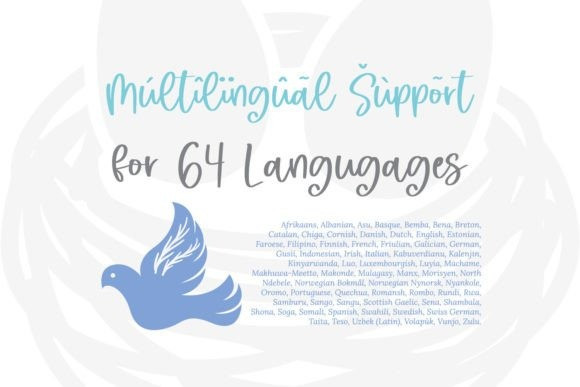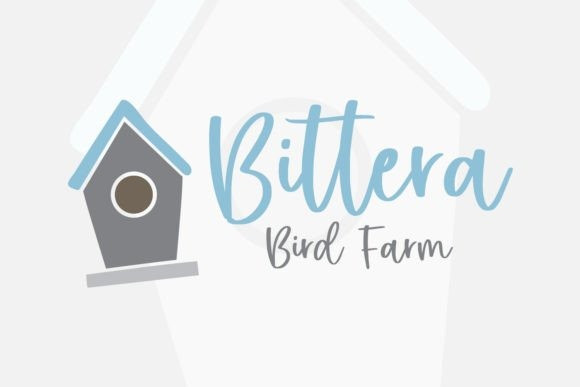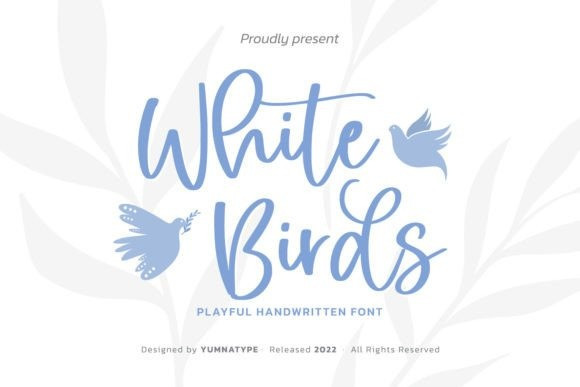
White Birds Font
White Birds Font is a creative designing way to catch attention. That is what this pretty font does. White Birds is a script font in handmade cursive styles with decorative and dancing basic line characteristics showing fun, elegant, modern nuances. To be visually attractive, its letter heights are made uneven for a purpose.